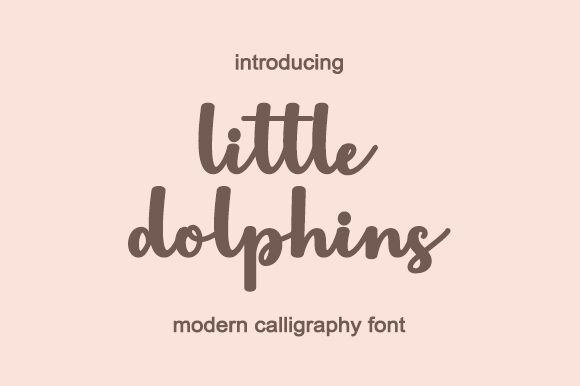
Little Dolphins, designed by Danar Nugroho, is a modern calligraphy font that exudes elegance and sophistication.
With its semi-light weight, this font is perfect for creating stunning wedding invitations and romantic love letters. Its graceful strokes and flowing curves also make it ideal for fashion magazines and beauty blogs, adding a touch of femininity to any project. Whether you're designing a logo for a high-end boutique or crafting social media graphics for a luxury spa, Little Dolphins will bring an air of elegance to your designs.